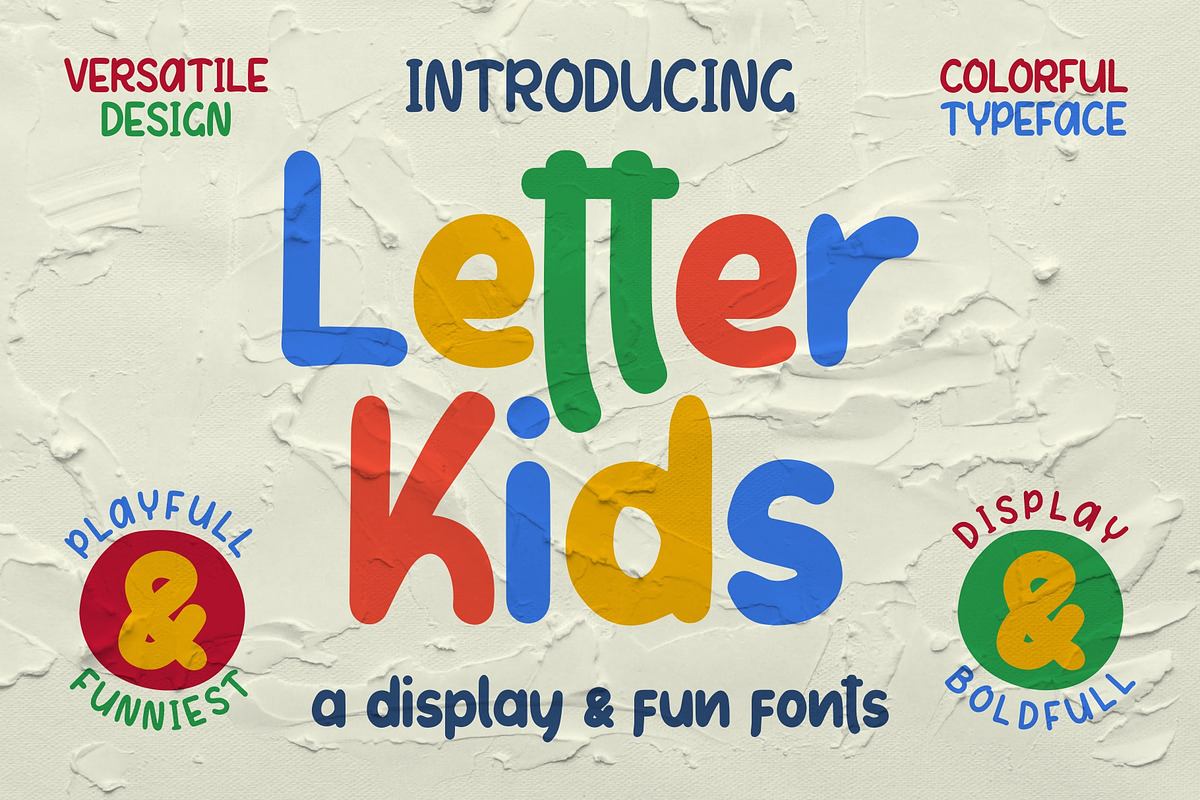
Letter Kids Font Free Download is a fun, friendly, and colorful typeface crafted especially for children’s projects. With its playful shapes and rounded edges, this font is perfect for storybooks, educational materials, school posters, games, and birthday invitations. It captures the innocence and joy of childhood in every letter.
Designers looking to add warmth and creativity to their kid-focused content will love the charm of Letter Kids. The font is easy to read, yet full of character, making it a great choice for both print and digital designs. Letter Kids Font Free Download lets you explore its playful style before purchasing a commercial license, so you can see how it fits your project needs.
Brighten up your creative work with the cheerful and imaginative spirit of Letter Kids!